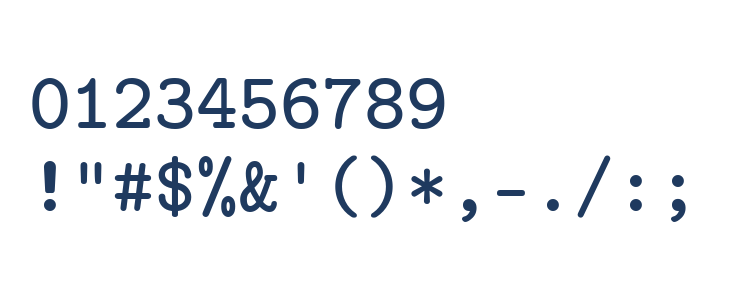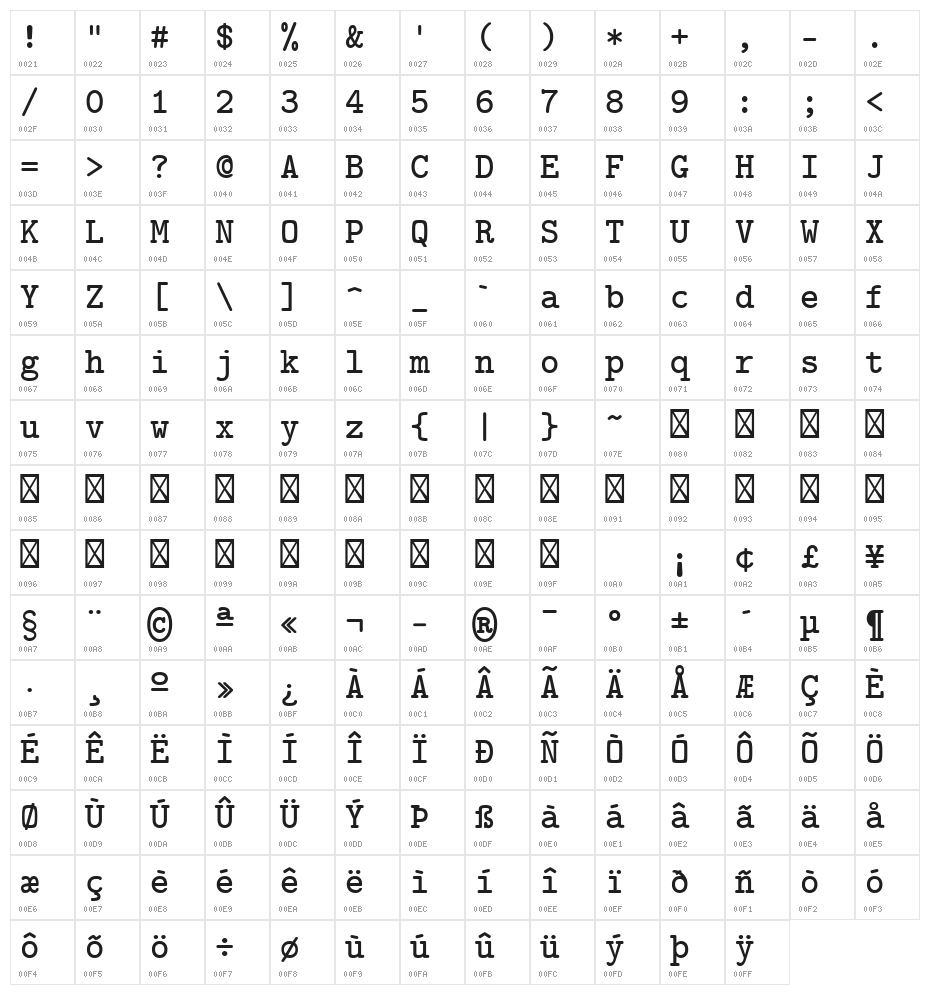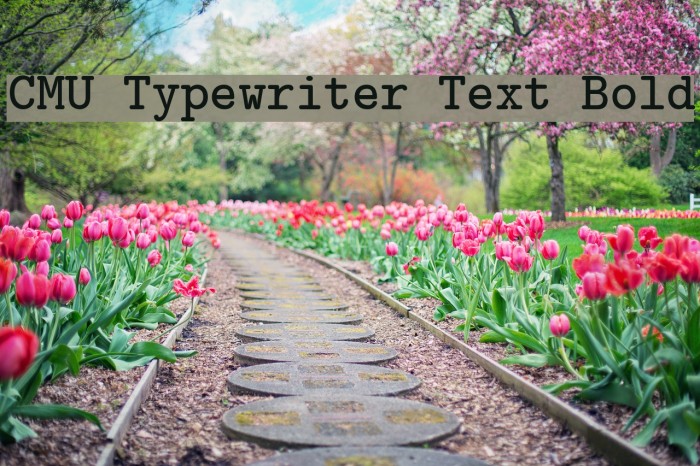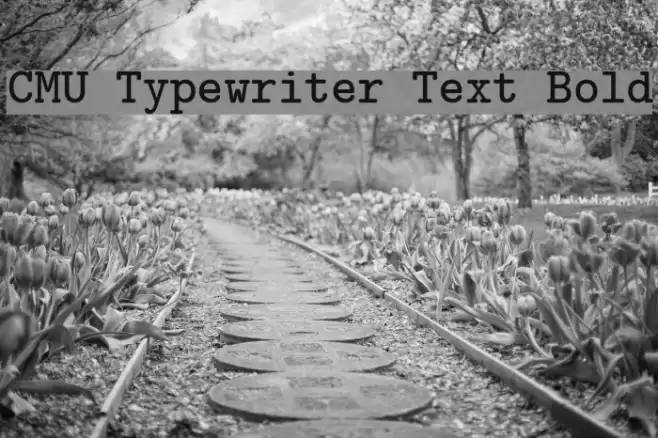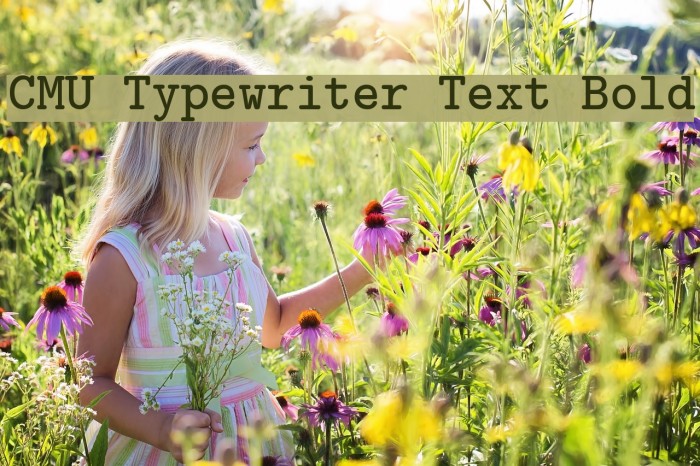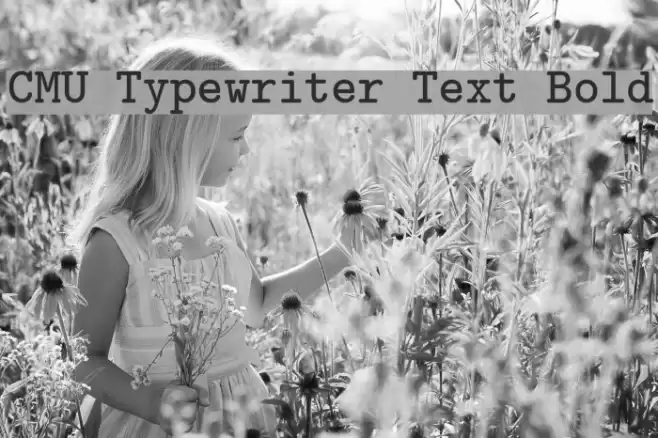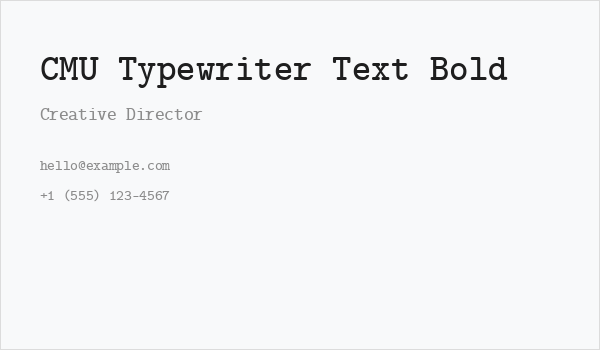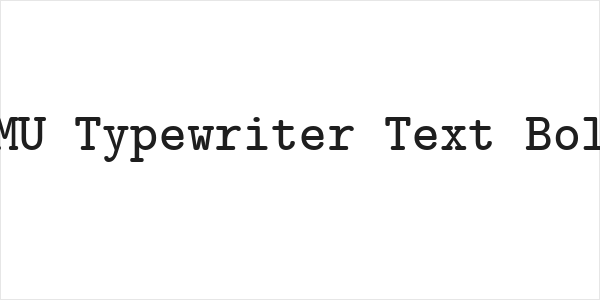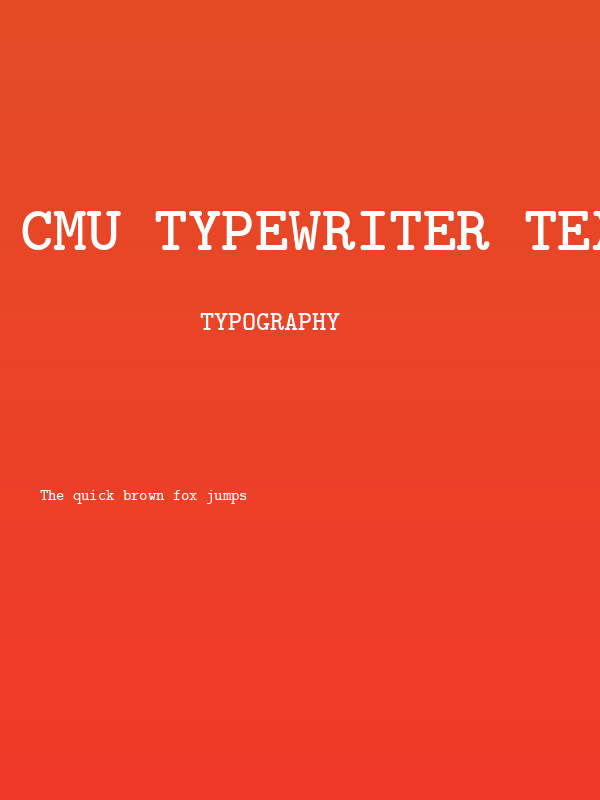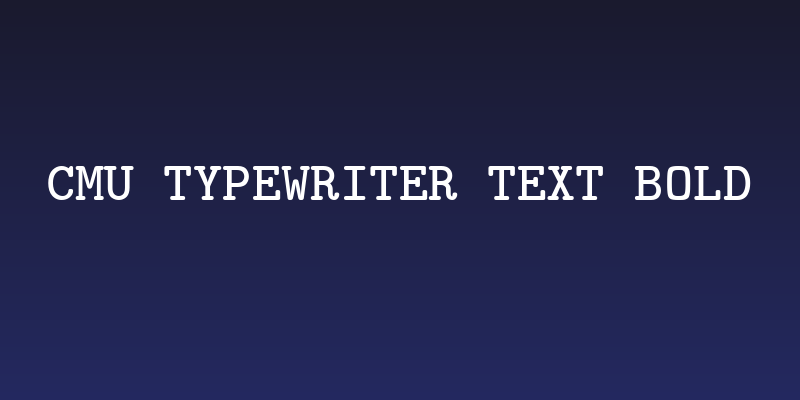
CMU Typewriter Text Bold Font
CMU Typewriter Text Bold Description
This typewriter-style font features a bold and robust appearance, reminiscent of classic mechanical typewriters. The characters are monospaced, providing a uniform and orderly look. Each letter and number is well-defined with rounded edges, giving it a slightly softened appearance despite its boldness. The font maintains a consistent stroke width throughout, which contributes to its low contrast. The spacing between characters is normal, ensuring readability while preserving the traditional typewriter aesthetic. This font is ideal for projects that require a vintage or retro feel, such as creating documents that mimic old typewritten pages or designing graphics that evoke a sense of nostalgia.